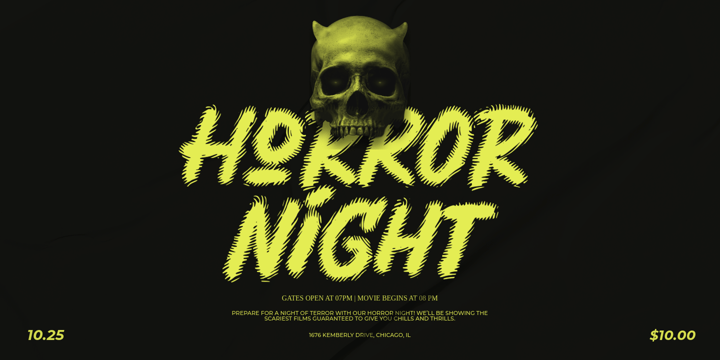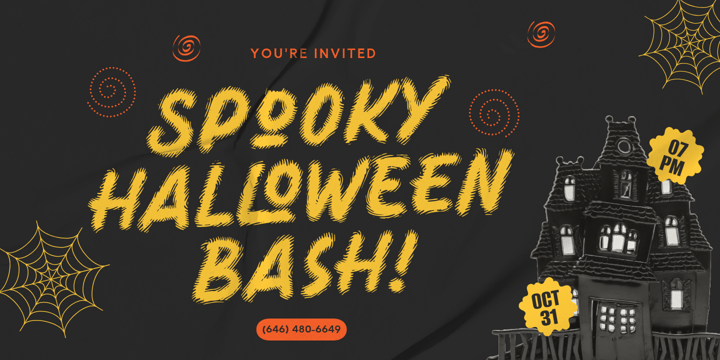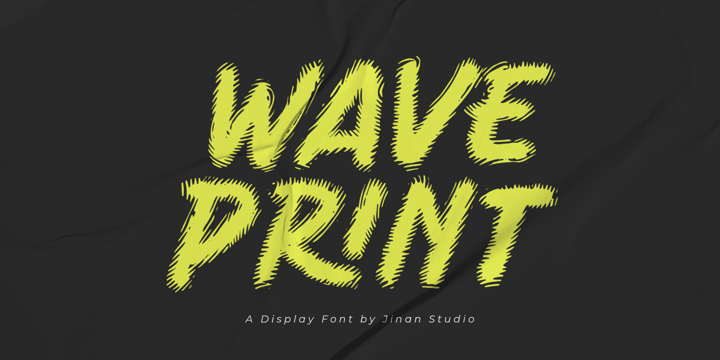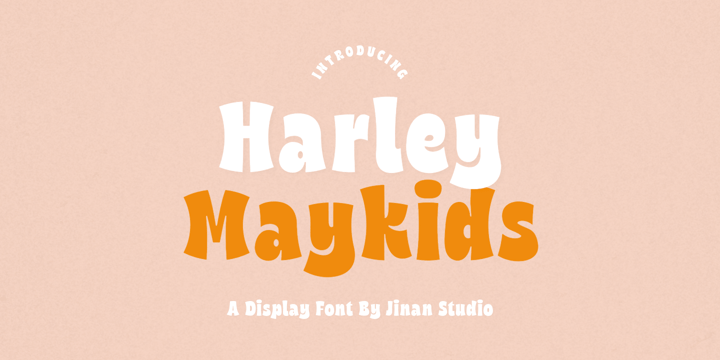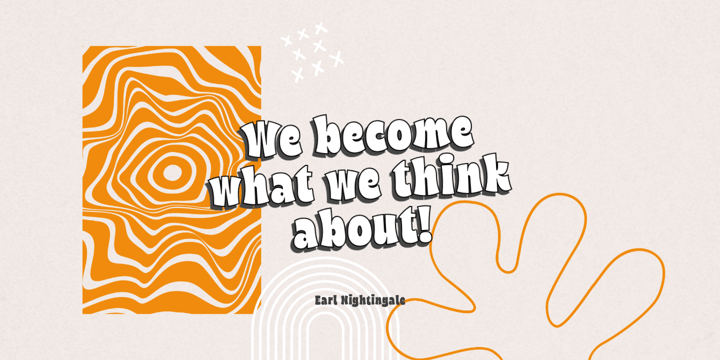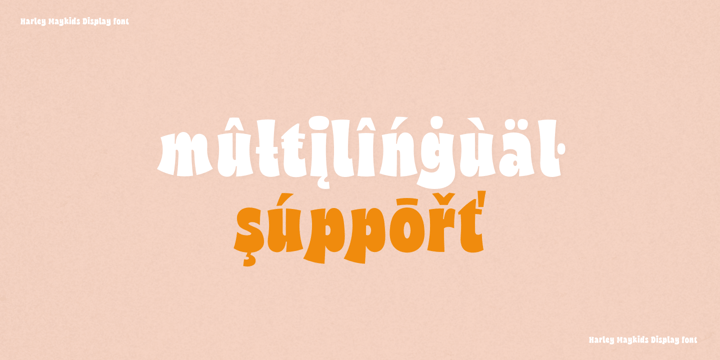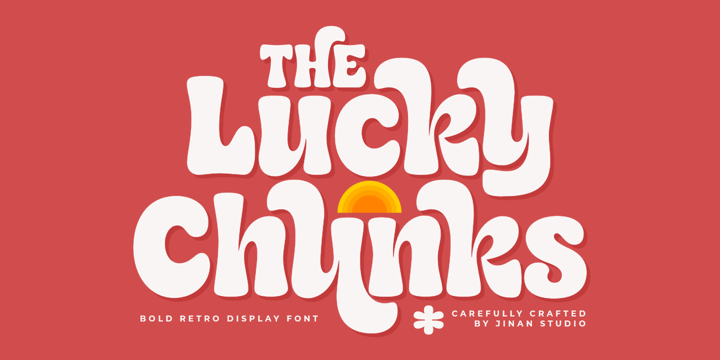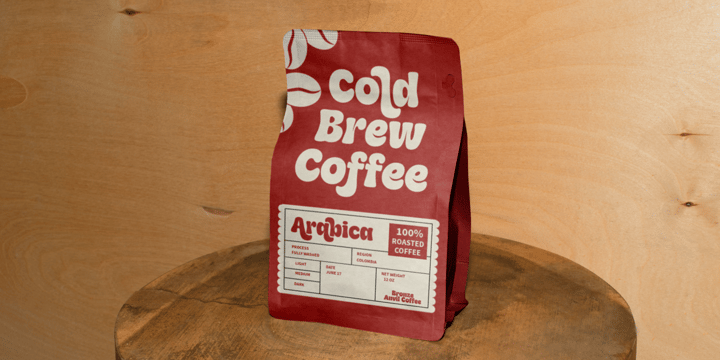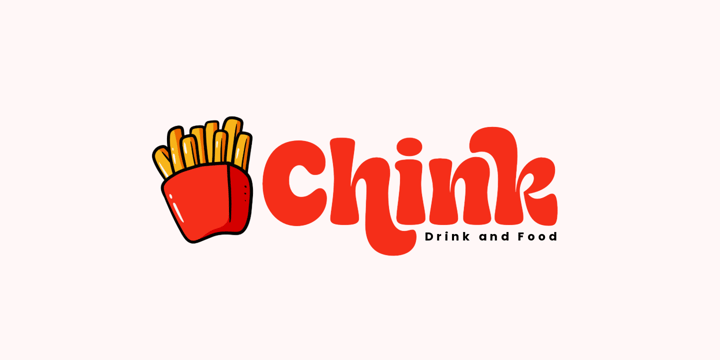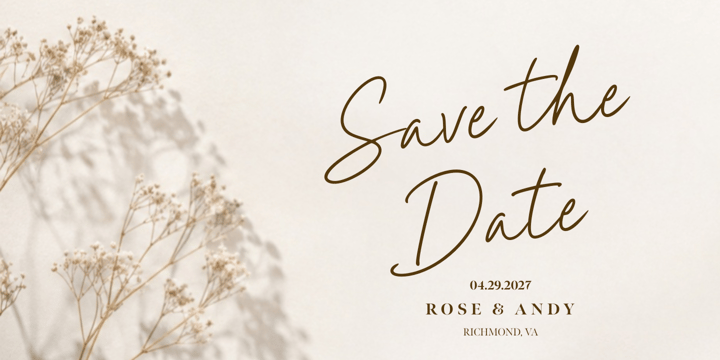
Ainun Jinan
"I (Ainun Jinan) am a font designer with an unwavering passion for the art of handcrafted typography. Through my work, i strive to infuse each font with a personal touch and a sense of artistry.
Handcrafted typography holds a special place in my heart, as it allows me to express my creativity and bring a human element to the digital realm. I find joy in meticulously shaping each letterform, paying attention to every curve, stroke, and detail. This devotion to craftsmanship ensures that my fonts are not only visually appealing but also thoughtfully designed for practical use across various design projects.
In my font designs, I merge artistic flair with technical expertise. I carefully consider factors such as readability, and overall visual impact to create fonts that are both aesthetically pleasing and functional. By striking this balance, I aim to provide designers with versatile tools that can enhance their creative projects.
Exploration and innovation are integral to my creative journey. Constantly seeking inspiration from diverse sources, I eagerly delve into new styles, techniques, and cultural influences. I am passionate about staying at the forefront of font design by keeping up with industry trends and embracing experimentation.
Beginning the design process with hand-drawn sketches or calligraphy allows me to infuse my fonts with a distinct personality. This tactile approach establishes a deeper connection between myself as the designer and the final product. The result is fonts that possess character, authenticity, and a sense of artistic expression.
As I continue to evolve and grow as a font designer, I remain dedicated to honing my craft and expanding my creative horizons. It is my ultimate goal to create fonts that inspire and resonate with others, while leaving a lasting impression on the world of typography."